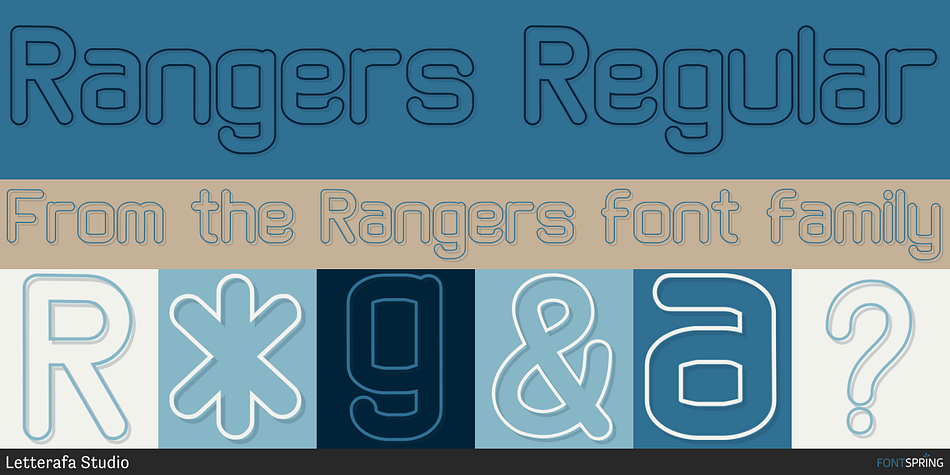
Rangers Regular
Designed by Ahmad Afandi, Rangers is a sans serif font family. This typeface has three styles and was published by Letterafa Studio.
Rangers is a cool and modern display font. This font is ideal for writing web designs, business cards, or pretty much anything else that requires a unique touch.